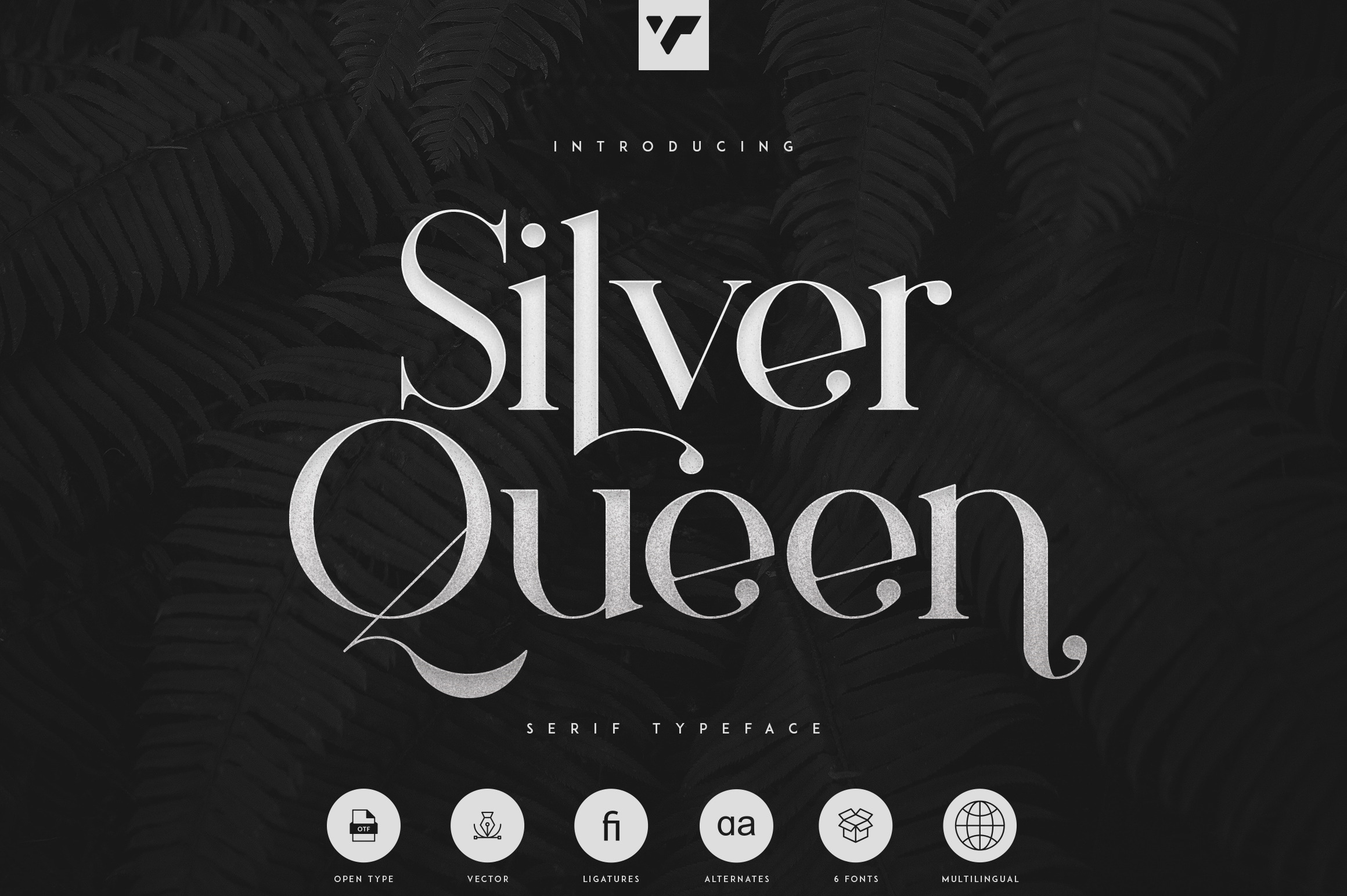
Silver Queen - Serif Typeface
Introducing Silver Queen - Serif Typeface with 6 weights
Silver Queen is luxury, vintage typeface with 6 weights loaded alternate glyphs, ligatures and multilingual support. It's a very versatile font that works great in large and small sizes.
Silver Queen is perfect for branding projects, home-ware designs, product packaging, magazine headers - or simply as a stylish text overlay to any background image.
- 6 weights
- Hairline
- Light
- Bold
- Extra Bold
- Black
- Alternate glyphs